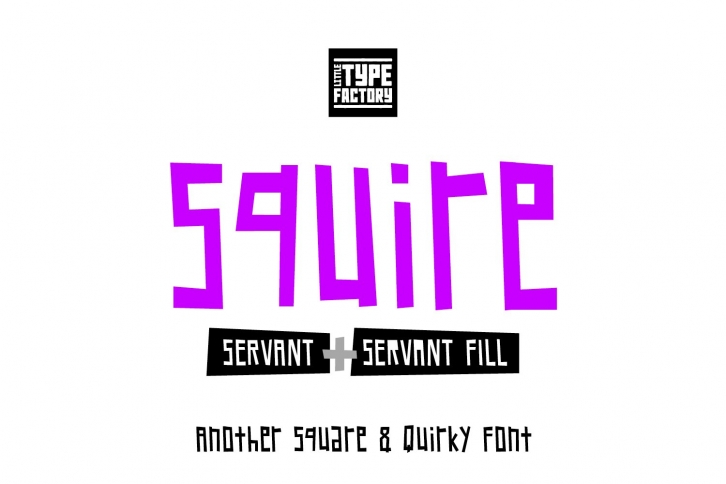
Squire Servant - another square & quirky font
Comes with Squire Servant Fill version FREE!!!!
Squire is a fun and dynamic font family created for many uses. Works well for branding and products. Can be used for grown up and children themed projects. Adds loads of character to all design work. Perfect for unique and eye-catching graphics. Also great for crafters.